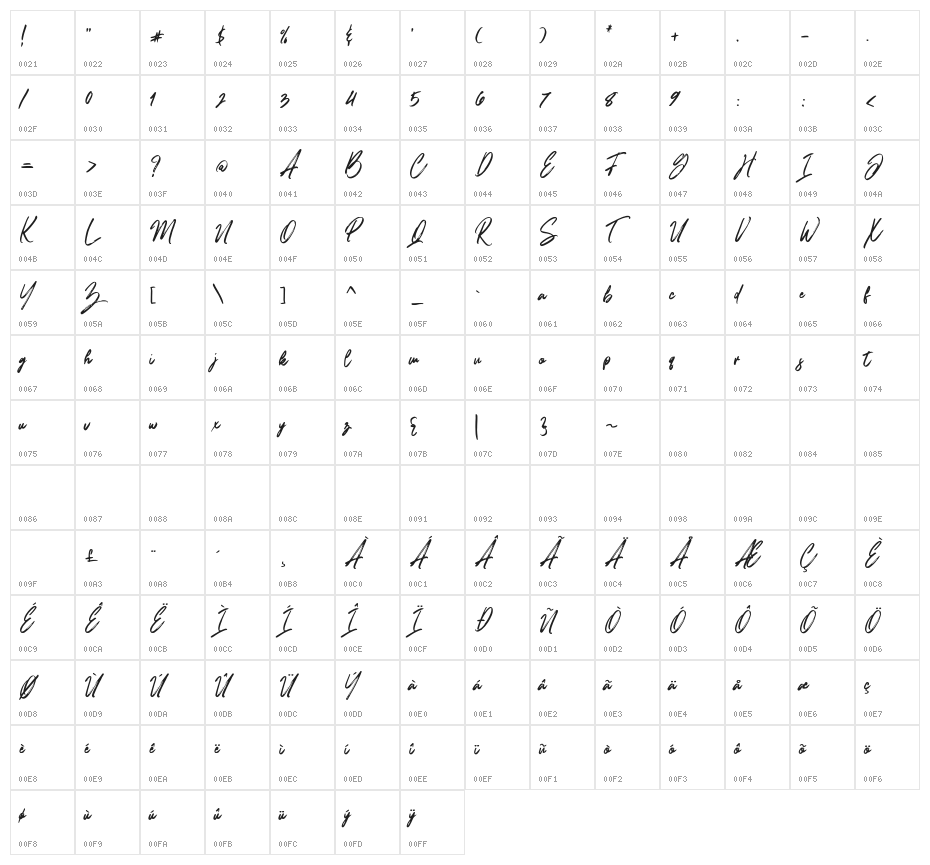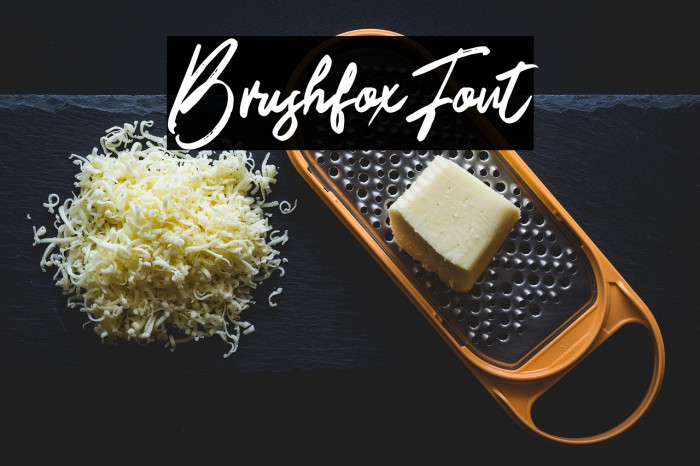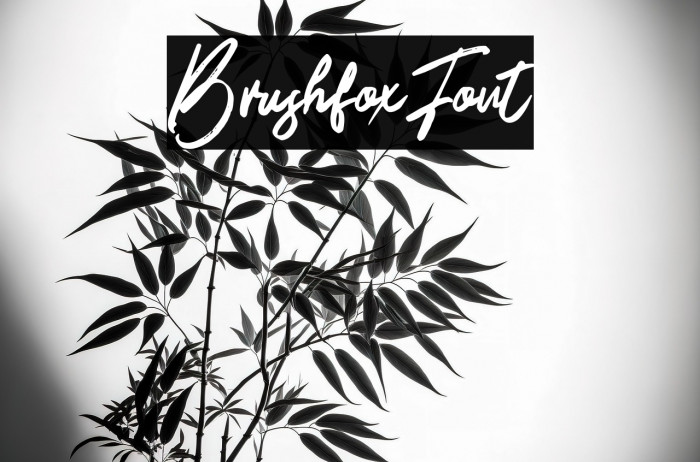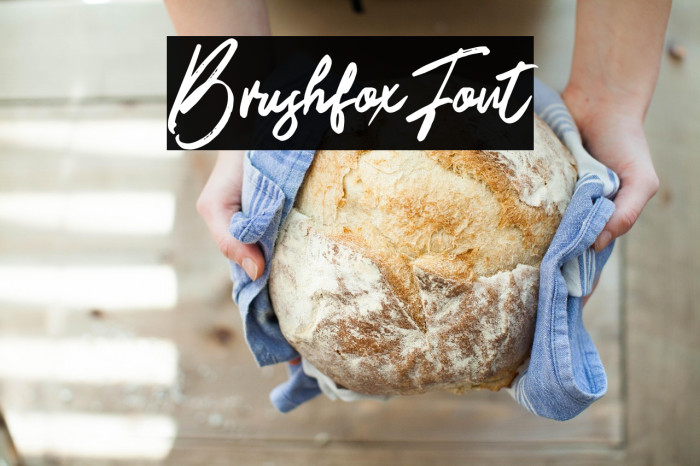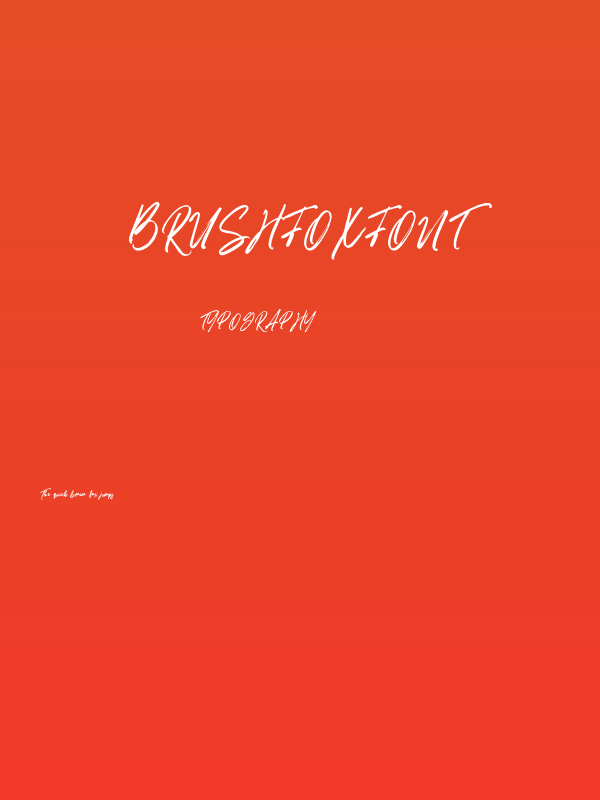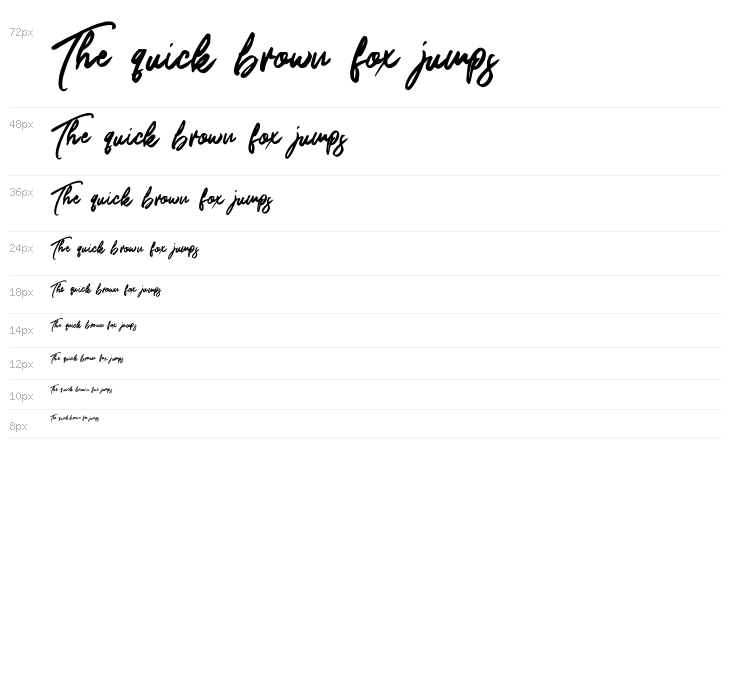
BrushfoxFont Font
BrushfoxFont Description
This font exudes a dynamic and energetic style, characterized by its brush-like strokes that give it a handwritten appearance. The uppercase and lowercase letters flow seamlessly, creating a sense of movement and fluidity. The strokes vary in thickness, adding a natural and organic feel to the text. Numbers and special characters maintain the same lively aesthetic, ensuring consistency across all elements. The overall impression is one of creativity and expressiveness, making it ideal for projects that require a personal touch.
| Use Case | Logos, Headlines, Artistic projects |
| Proposed Projects | Ideal for branding, invitations, greeting cards, and artistic projects that require a personal and creative touch. |